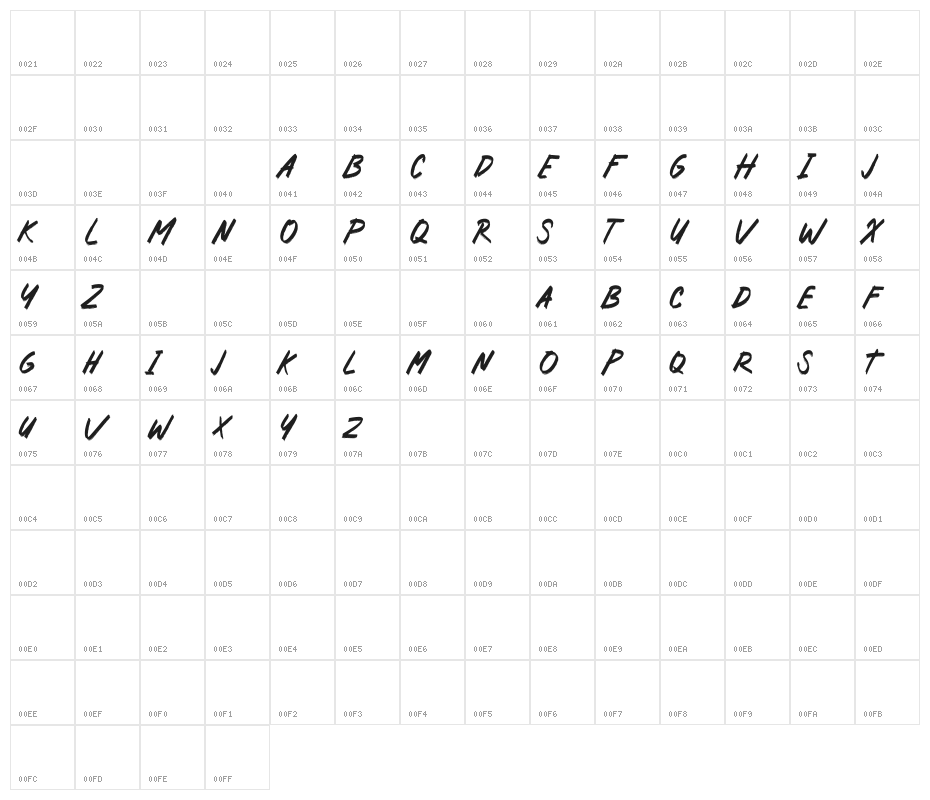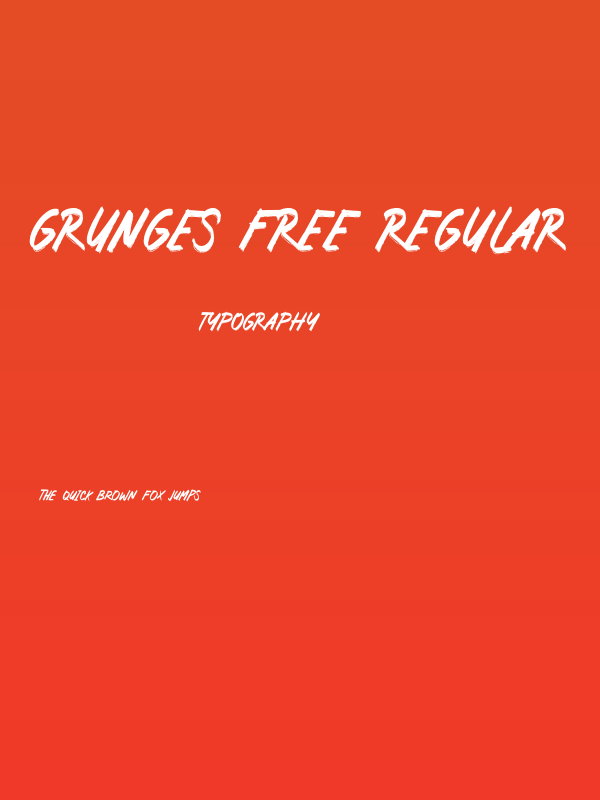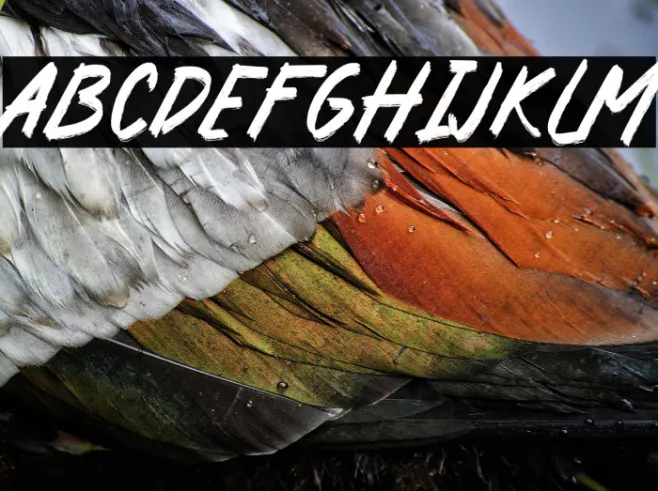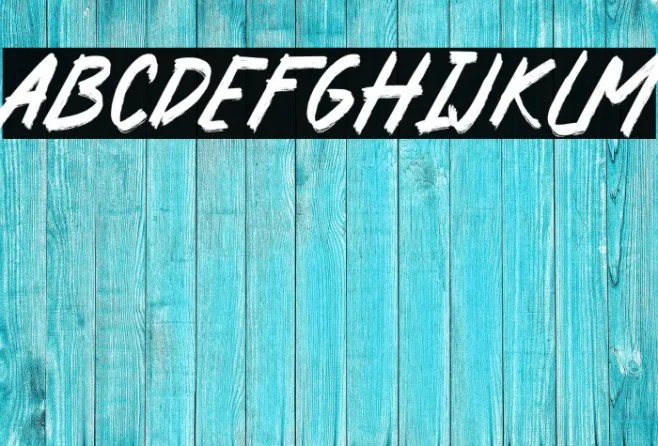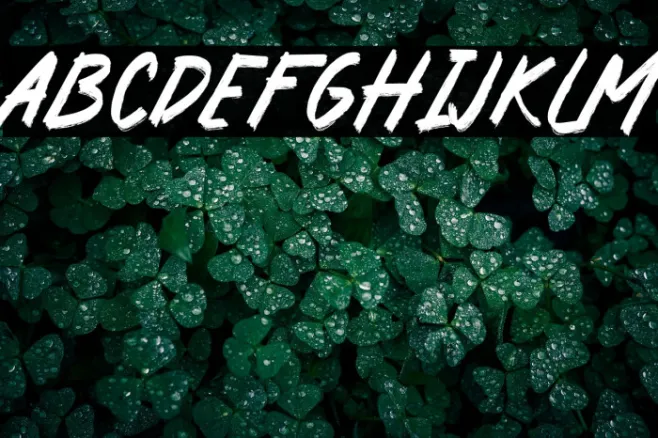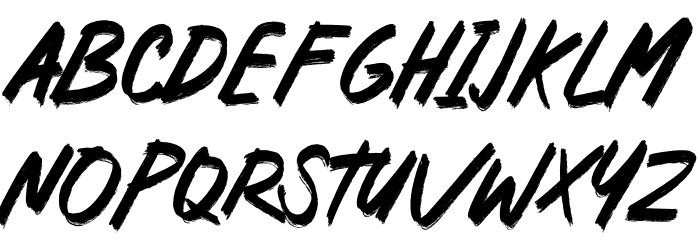
Grunges Free Regular Font
This font exhibits a bold, expressive style with a grunge aesthetic. The letters are characterized by rough, uneven edges and a dynamic, hand-painted appearance. The strokes are thick and irregular, giving the font a raw, energetic feel. It captures a sense of movement and spontaneity, making it ideal for projects that require a bold statement. The uppercase letters dominate the design, with each character maintaining a consistent height and width, yet varying slightly in stroke detail, enhancing the handmade look. The overall impression is one of artistic flair and rebelliousness, perfect for creative and edgy designs.
| Overall Style | Grunge, Artistic, Expressive |
| Proposed Projects | Ideal for album covers, posters, streetwear branding, and any project needing a bold, artistic touch. |